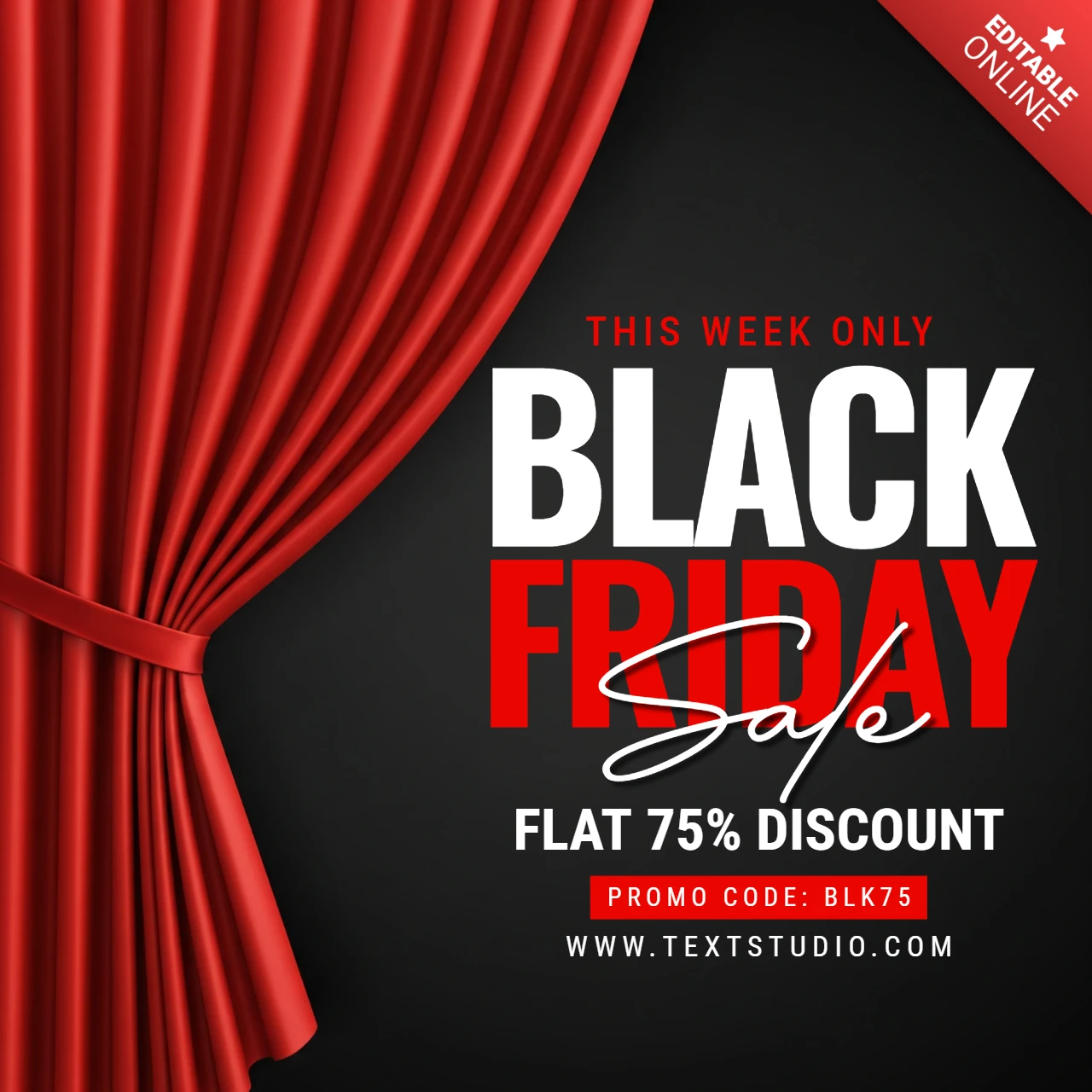
Seasonal Shopping Poster Black Friday Design Featuring Red Curtain, Bold Fonts, and Elegant Contrast Design Template for Promotional Flyers
Edit in Design Studio Download as JPGElevate your advertising game this Black Friday with our bold and elegant design templates, featuring striking red and black contrasts perfect for seasonal retail promotions and flyers.